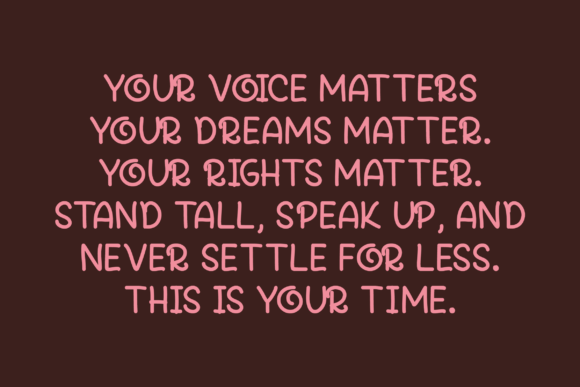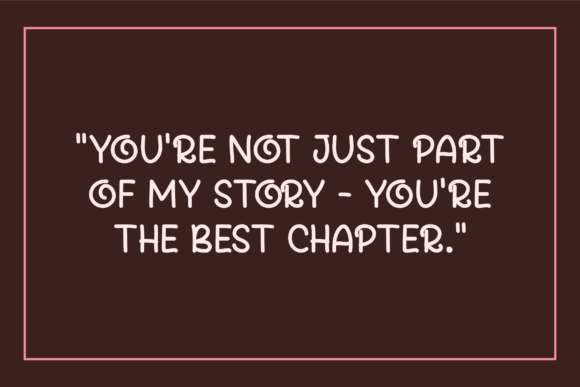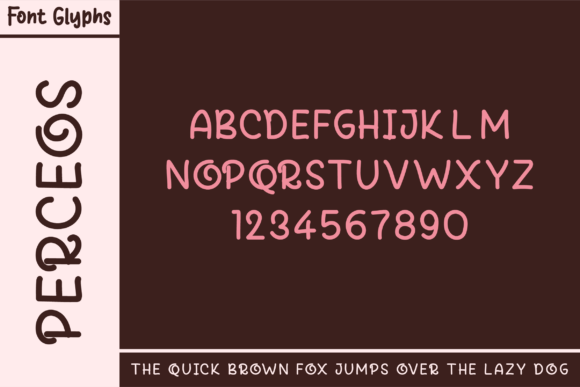
Perceos Font: Bold Handwritten Font for Inspiring Social Media Design
About the Perceos Font
Crafted with precision, the Perceos Font is ready to bring your ideas to life. Make an impact with Perceos, a handwritten font that combines a strong, bold presence with a charming, personal touch. Ideal for branding, packaging, social media, and print, its unique style adds warmth and authenticity to any design. Achieve a professional yet approachable aesthetic with it.
Perceos excels in headlines, short-form content, and branding applications where a bold, yet approachable personality is desired. Its handcrafted feel works particularly well for logos, packaging, and social media graphics. However, its informal nature makes it less suitable for body text or lengthy paragraphs, and its weight might overwhelm UI elements.
Consider pairing Perceos with a clean sans-serif like Lato for a balanced contrast, or a refined serif such as Garamond for a touch of classic elegance. For a more playful feel, a script font with a similar weight could create a cohesive and dynamic pairing.
Perceos projects a confident, friendly energy, suitable for brands aiming for a warm and authentic connection with their audience. Think artisanal products, lifestyle brands, or creative businesses seeking a handwritten touch without sacrificing visual impact.
Perceos Font Usage Examples
Perceos Font Example